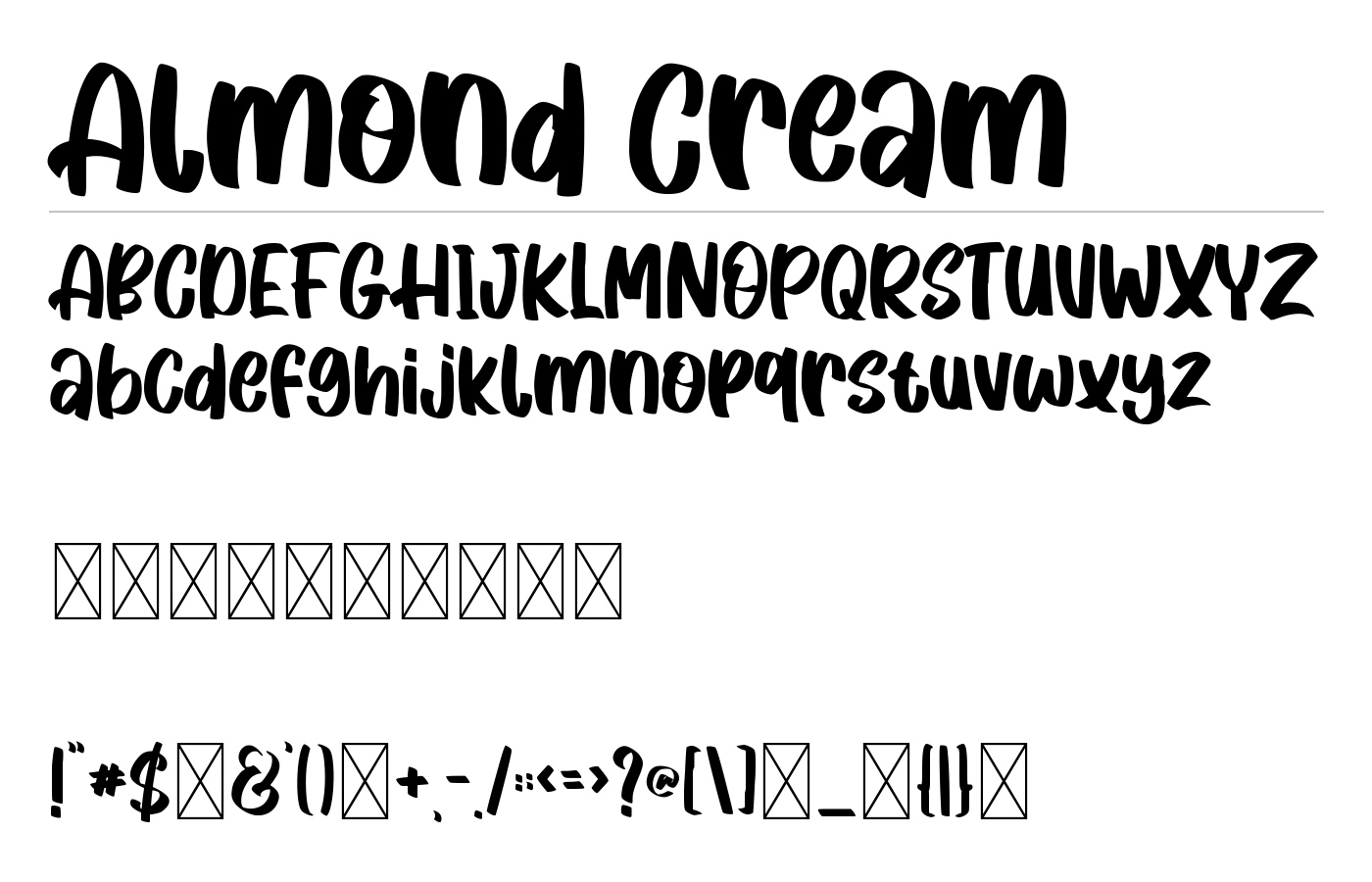
Almond Cream is a playful and bold handwritten font featuring thick, rounded strokes and lively, slightly irregular letterforms that give it a warm and friendly personality. Its tall x-height and chunky style make it highly legible and perfect for eye-catching headlines, logos, and branding that seek a casual, approachable vibe. This font works especially well in creative and youthful designs where a personal, handcrafted feel is desired.
Almond Cream Font
About Almond Cream Font
| Font family | Almond Cream Font |
| Designer | M Arif Dwi Prasetyo & Eko Nurcahyo |